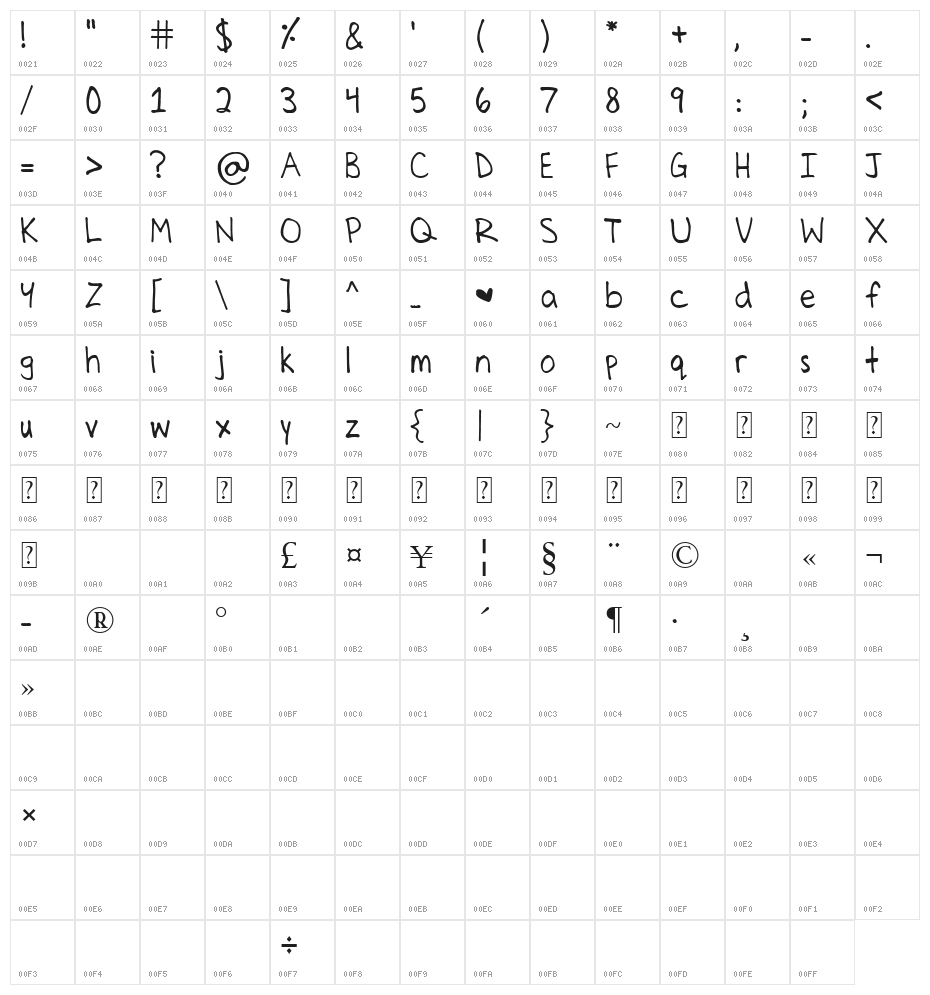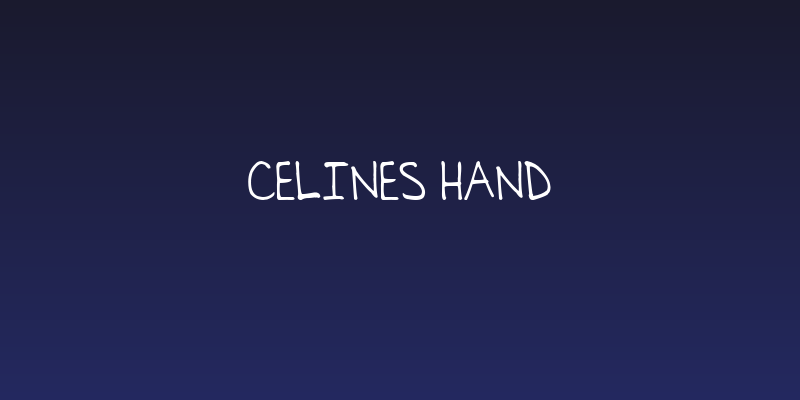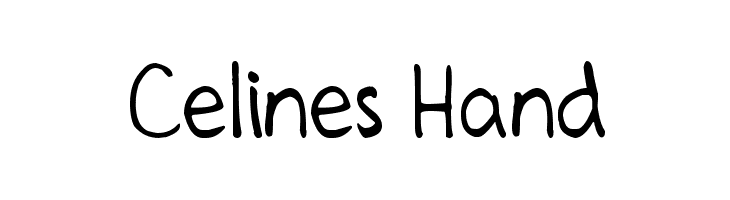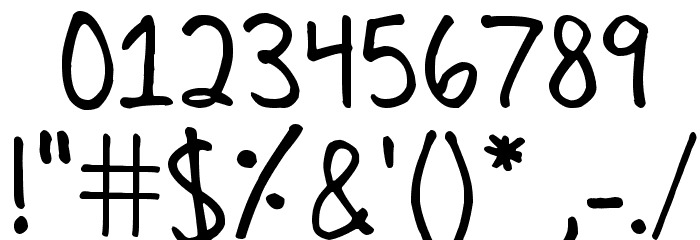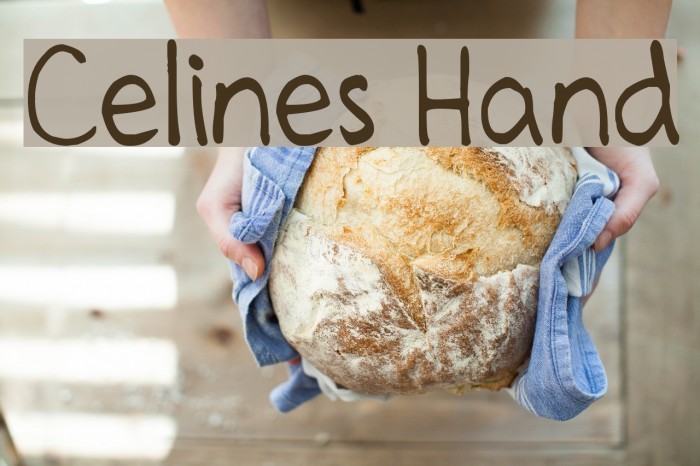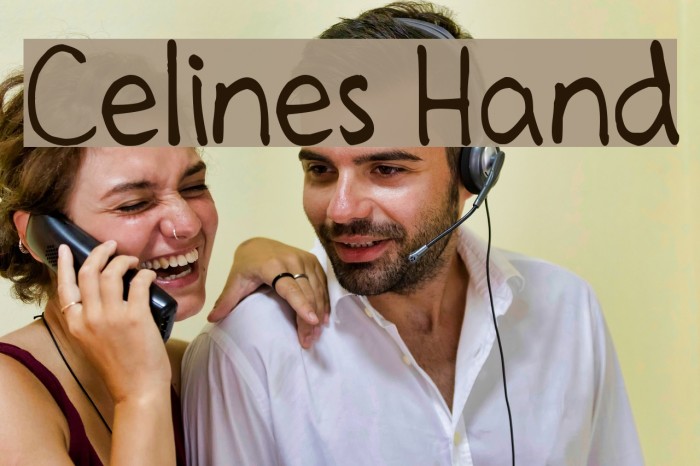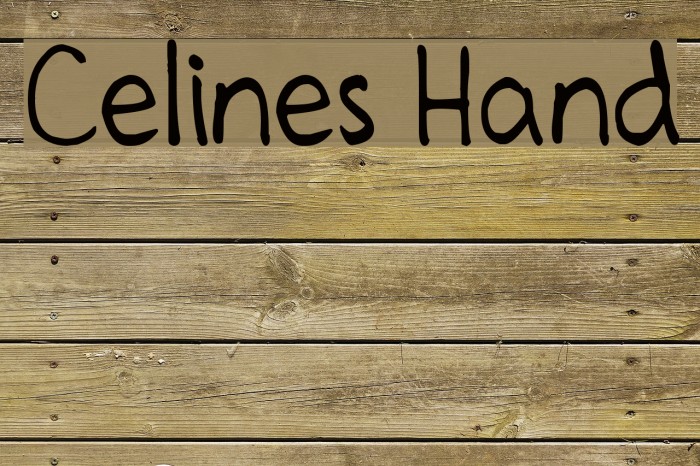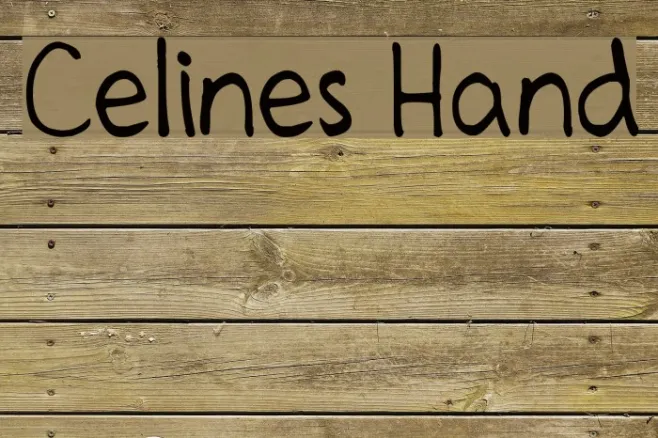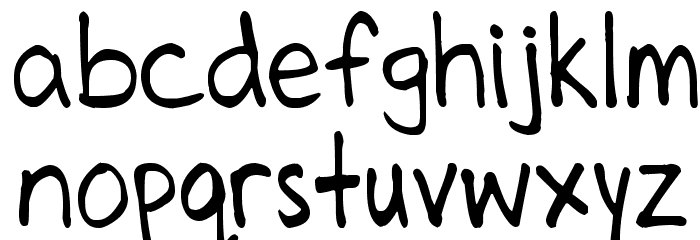
Celines Hand Font
Celines Hand Description
This font exudes a casual, handwritten style with a playful and approachable feel. The characters are slightly irregular, mimicking the natural flow of handwriting. The strokes are consistent in weight, giving it a balanced appearance. The uppercase letters are bold and confident, while the lowercase letters maintain a friendly and informal tone. Numbers and special characters are clearly legible, maintaining the font's overall whimsical charm. This font is perfect for projects that require a personal touch, such as greeting cards, invitations, or casual branding.
| Use Case | Headlines, Casual text, Personal projects |
| Proposed Projects | Ideal for greeting cards, invitations, personal branding, and casual designs. |